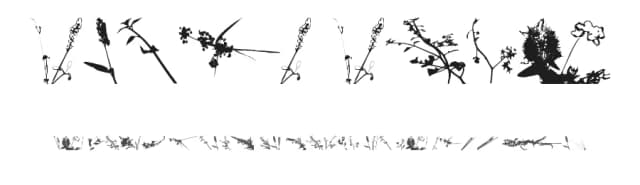
About CatCrypt Font
CatCrypt Font is a versatile dingbats font that works for both headings and body text. Pair it with a contrasting sans-serif or serif font to add visual interest and a clear distinction between titles and body copy.
CatCrypt Font